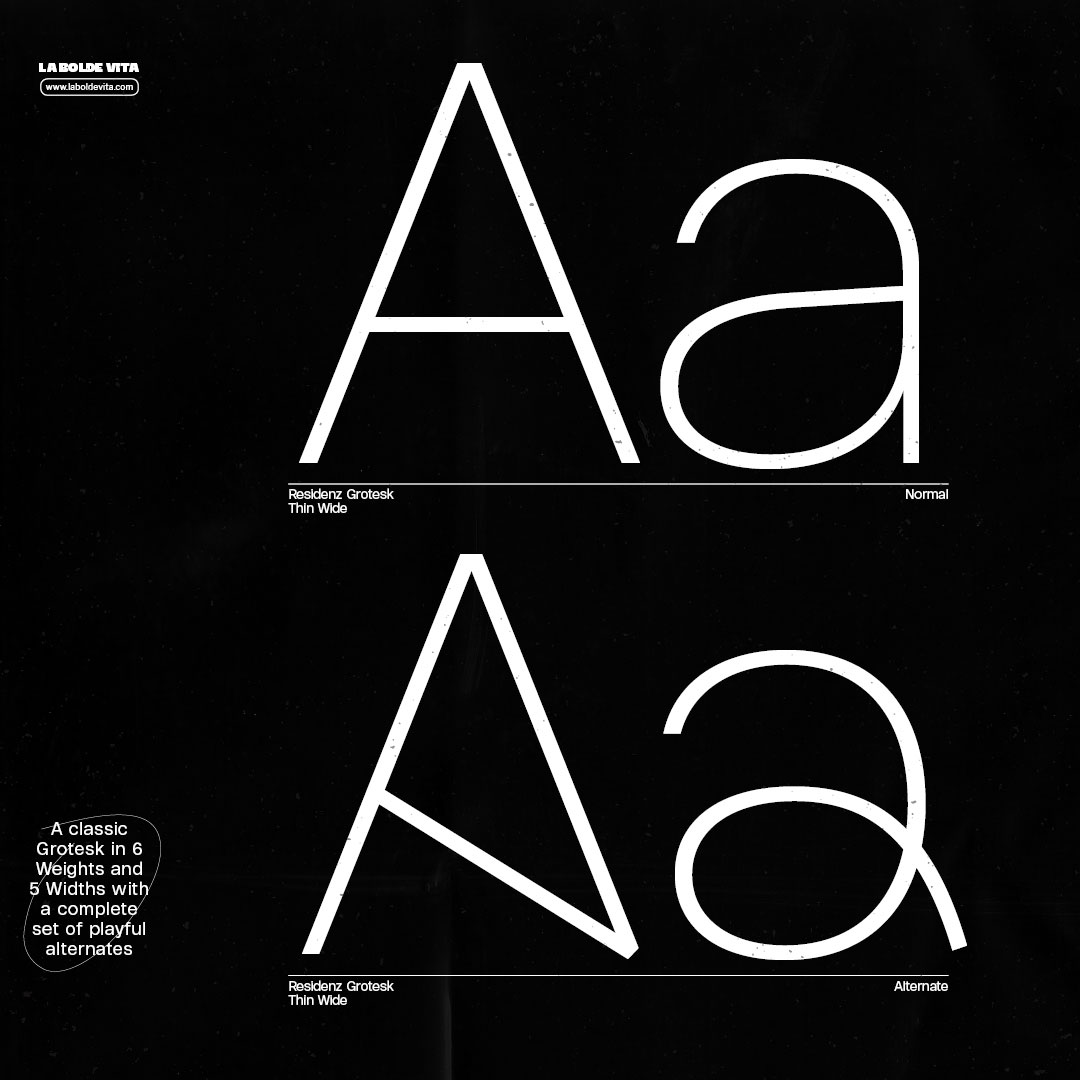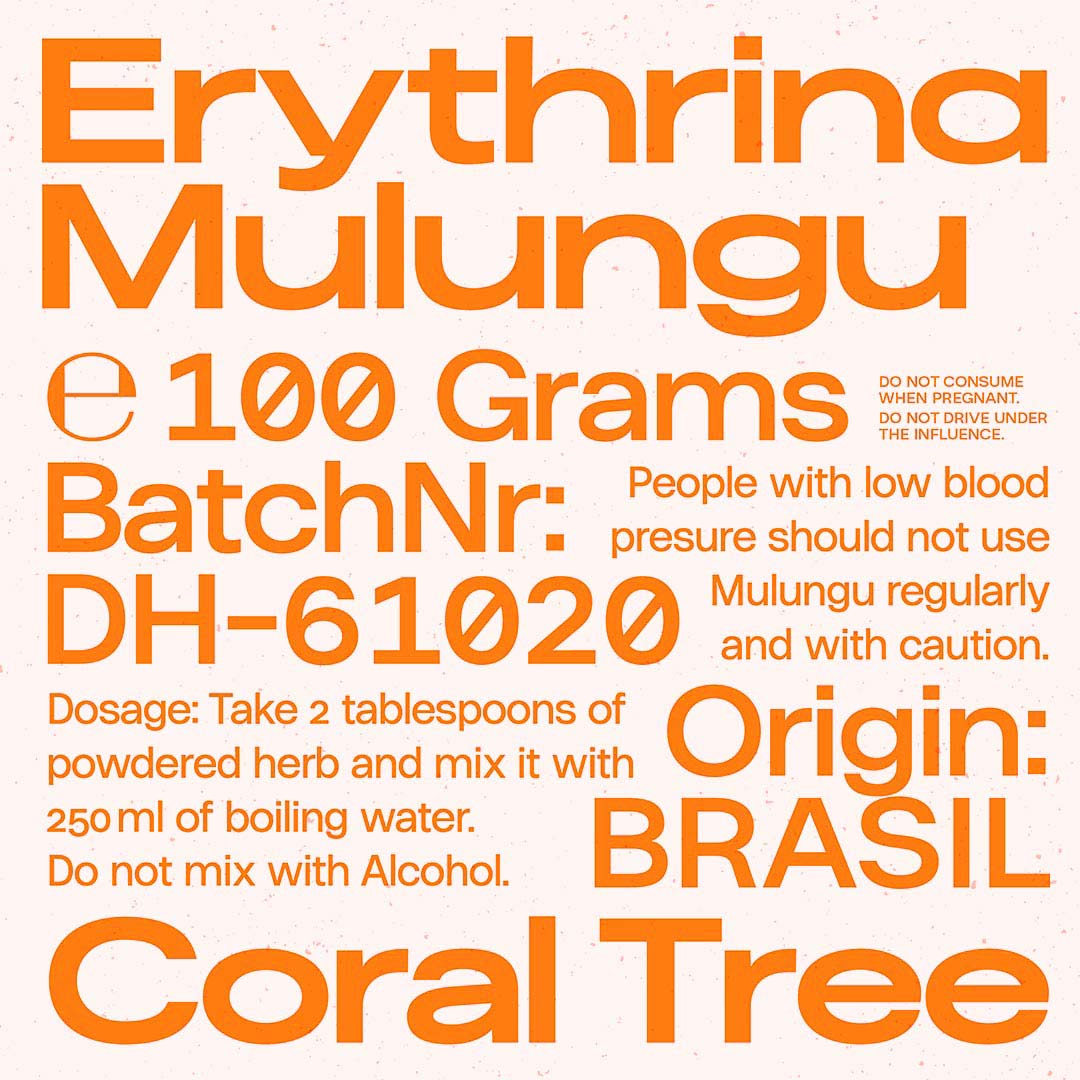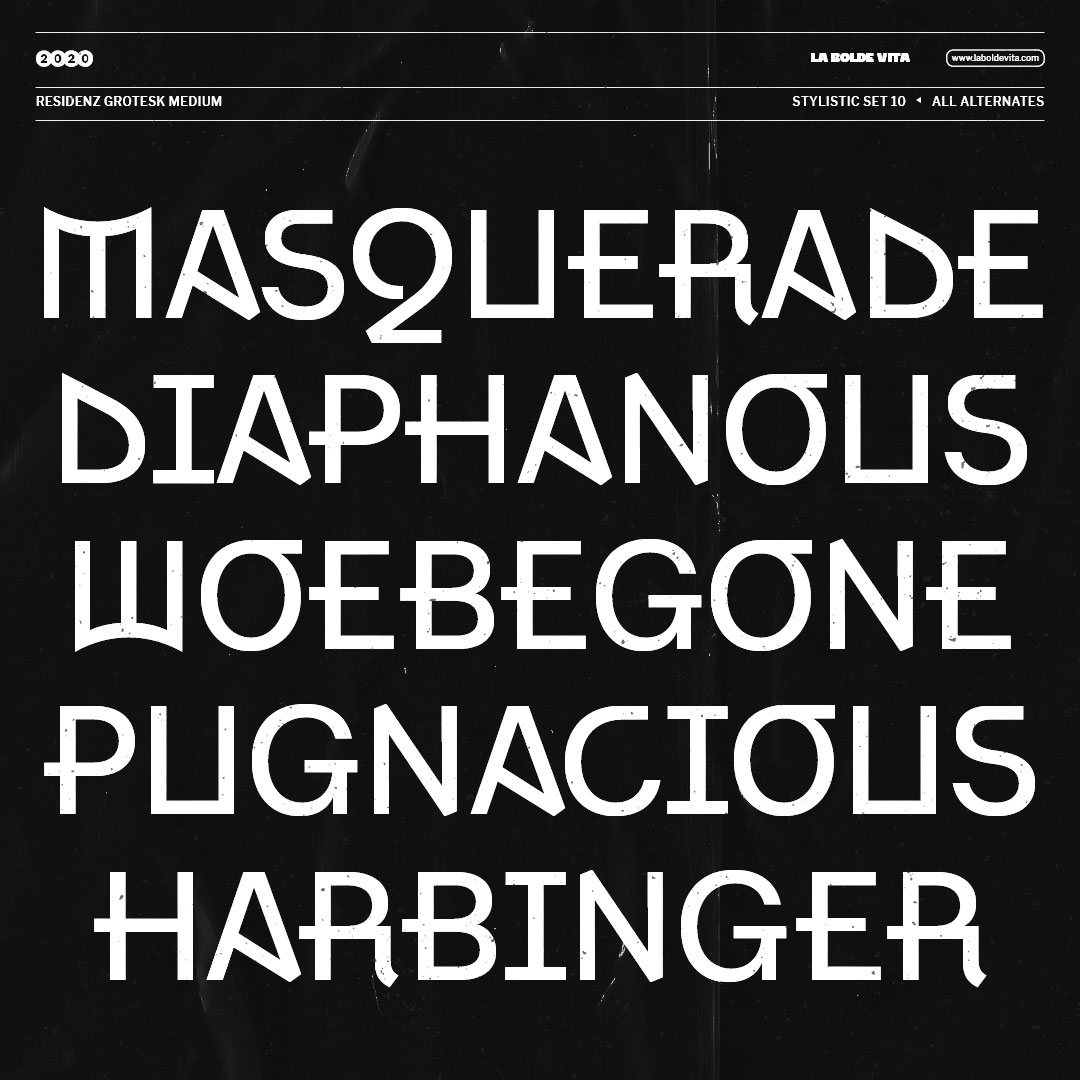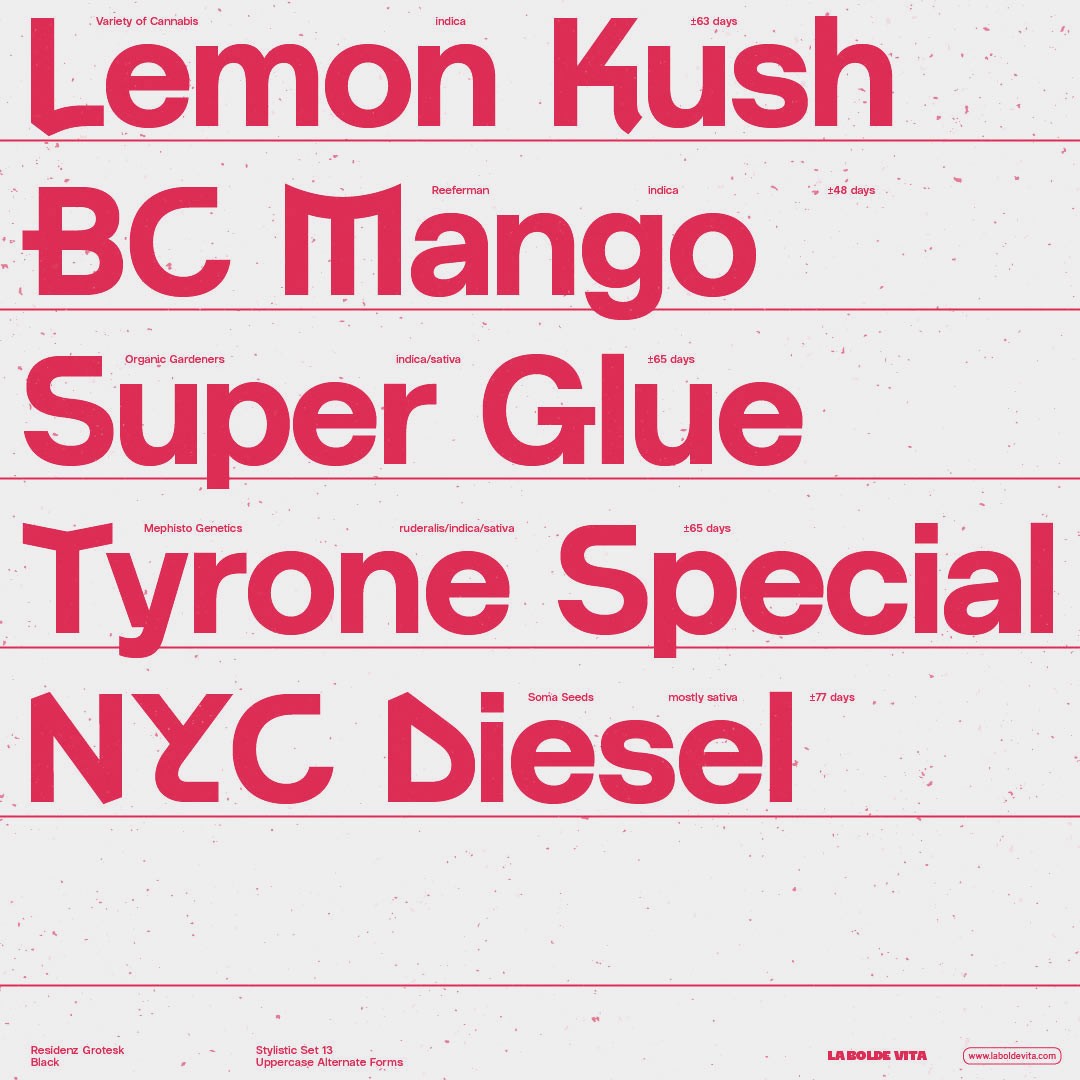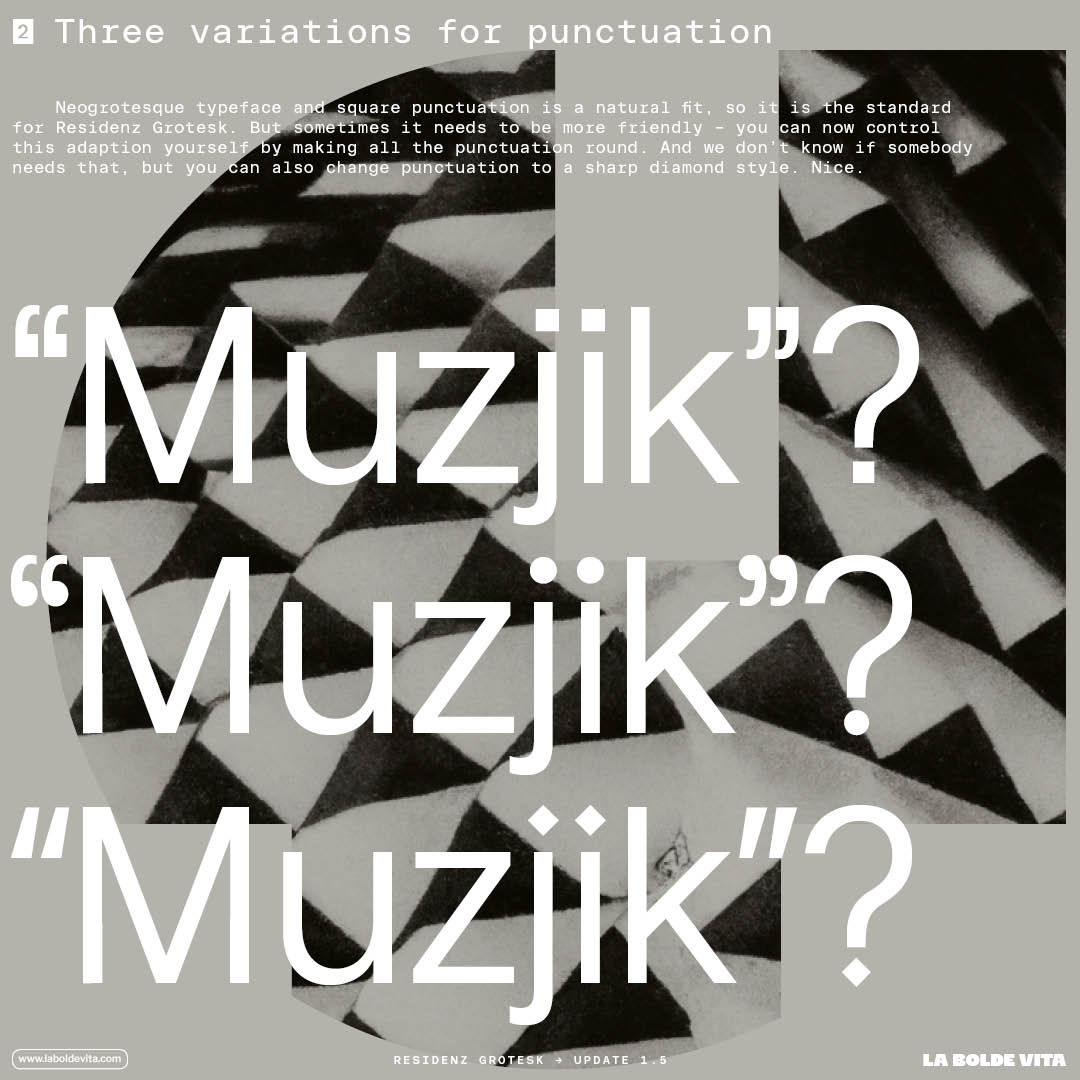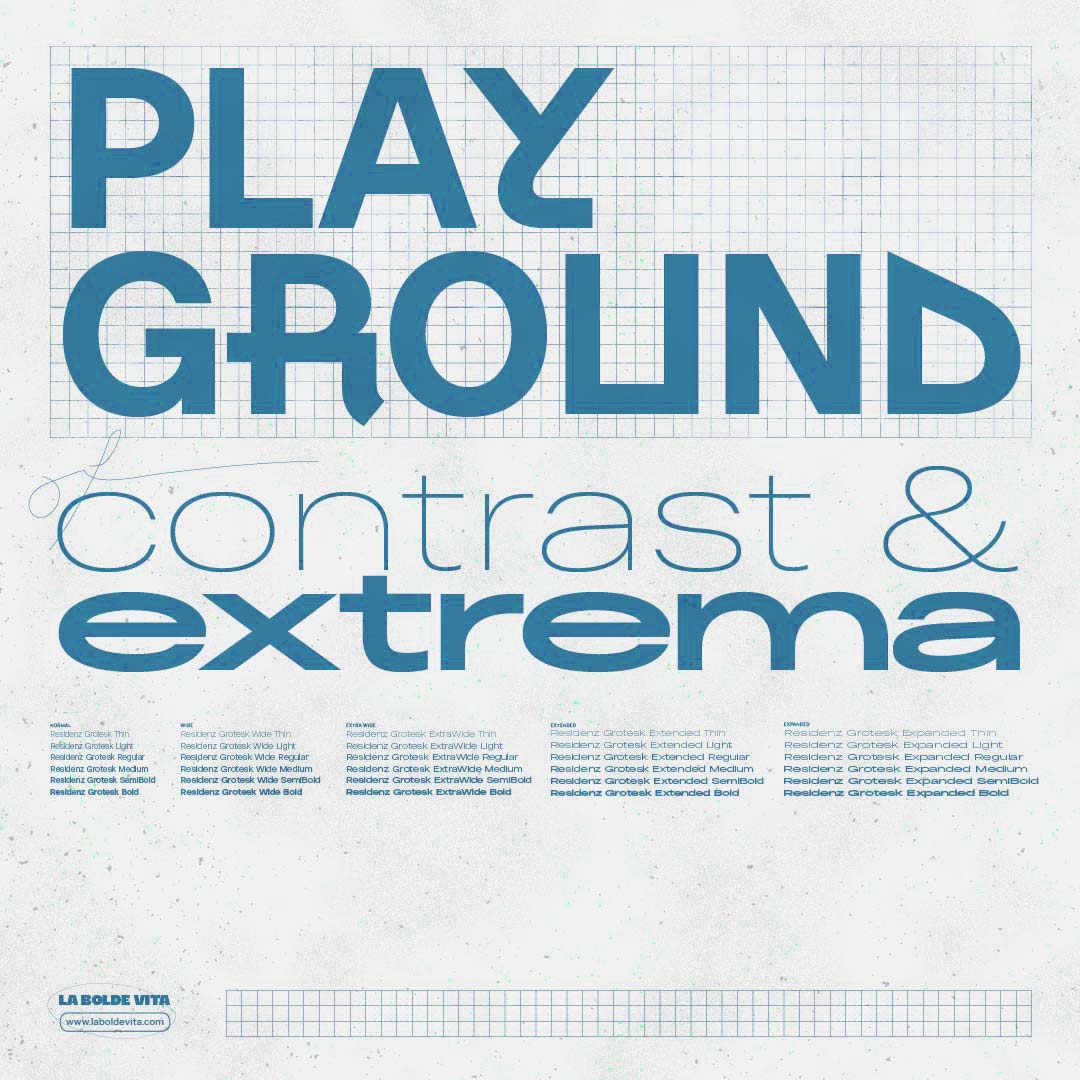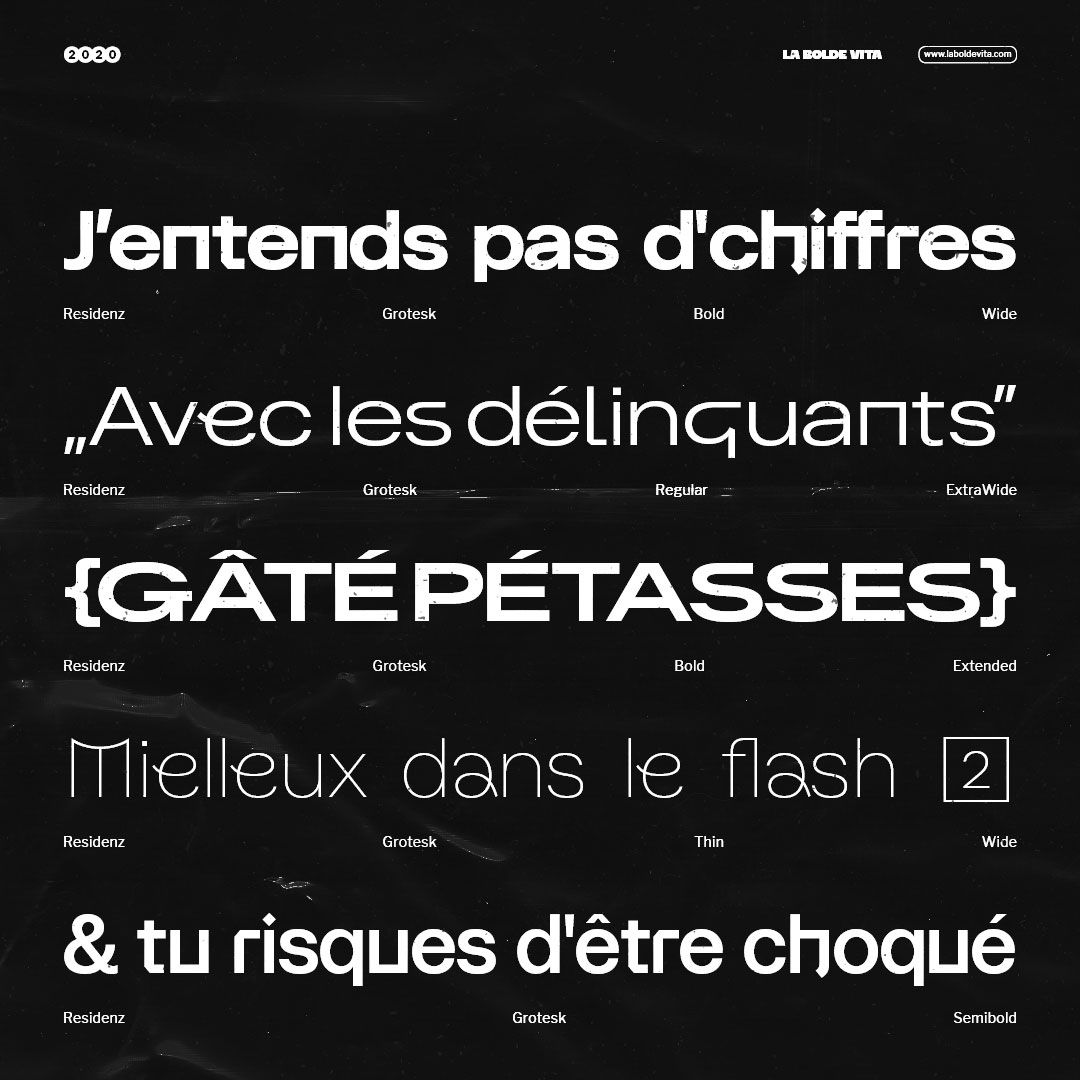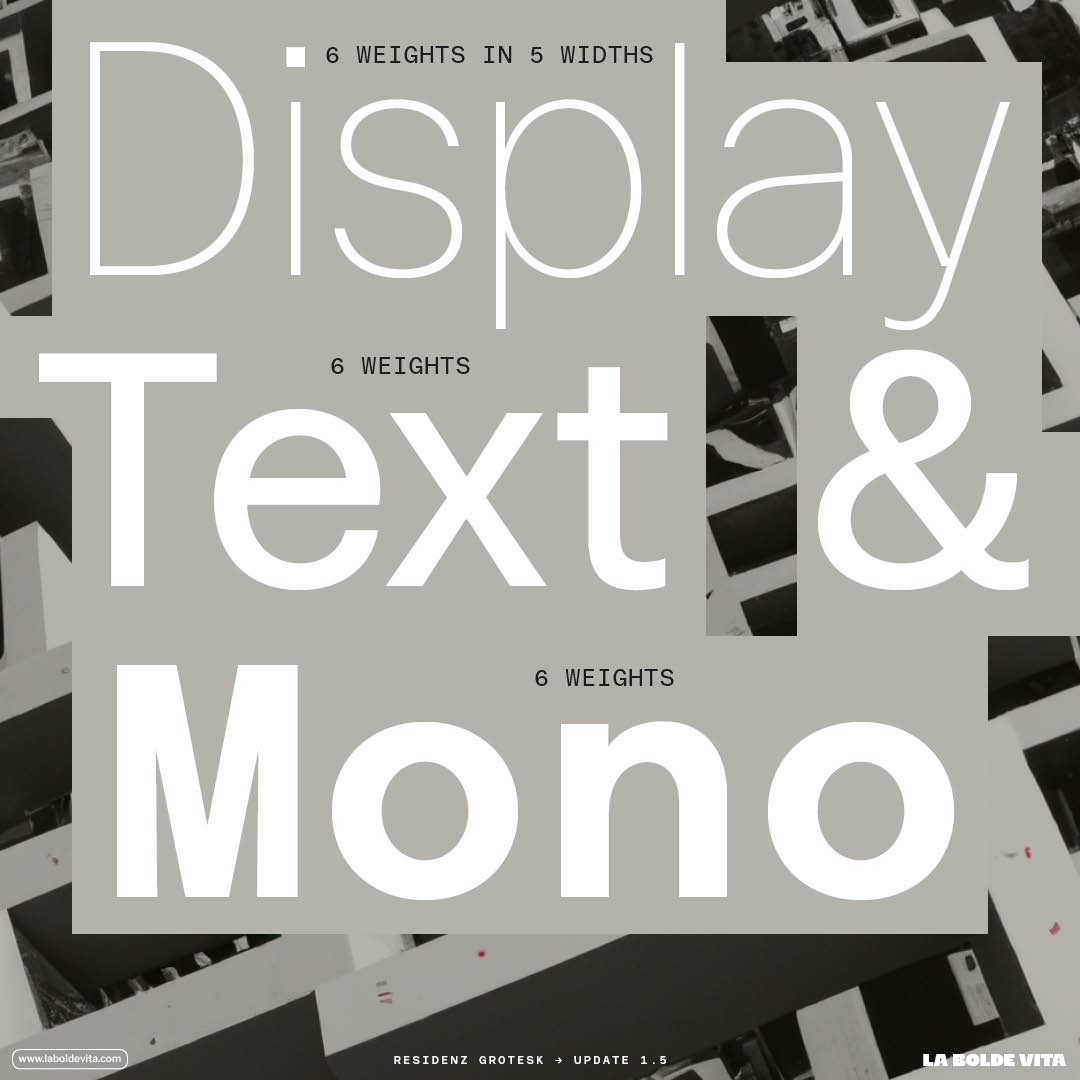
Jumping on board of the everlasting trend of grotesque typefaces, Residenz Grotesk aims to be a neutral and versatile workhorse with a friendly touch — but also an experimental playground for contrasts and extrema.
The well-known constructed letterforms are not only pushed to their limits in the extreme widths. A complete alternative alphabet, inspired by handwritten shapes and graffiti, can be sprinkled in individually or in set steps. This allows for a unique touch to be easily mixed in wherever needed.
Available in 3 subfamilies – Display, Text and Mono – with various weights and widths, the spectrum of potential usage is wide and versatile, ranging from traditional swiss style typography to trending experimental graphics. Ensuring tightly spaced and impactful poster designs as well as reader-friendly and functional editorial layouts. And needless to say Residenz Grotesk comes with a comprehensive character set, useful OpenType features and is even available as a Variable Font for you type nerds out there!
Extended in 2023
Released in 2020
3 Subfamilies
Complete Set of alternate Letterforms
1341 Glyphs
Latin Extended-A
Residenz Grotesk
Residenz Grotesk Wide
Residenz Grotesk ExtraWide
Residenz Grotesk Extended
Residenz Grotesk Expanded
Residenz Grotesk Mono
Residenz Grotesk Text
The core feature of Residenz Grotesk are the different stylistic presets, mixing in the alternate letters in different frequencies. But of course the usual OpenType features like ligatures, case sensitive forms and various forms of figures are not missing.
Stylistic alternates
Alternative round forms
Oldstyle numerals
Residenz Grotesk is counting more than 1300 glyphs, covering the Latin Extended-A Unicode Range, a complete set of alternate letters and punctuation and fancy ligatures and symbols for characteristic poster and editorial usage.
Thanks to the coverage of the Latin-Extended-A Unicode range, Residenz Grotesk supports most modern Latin languages. Actually, containing some additional accented glyphs, you can set text in 215 languages. If you still think your language isn't supported, you can look up the full list below or in the specimen.